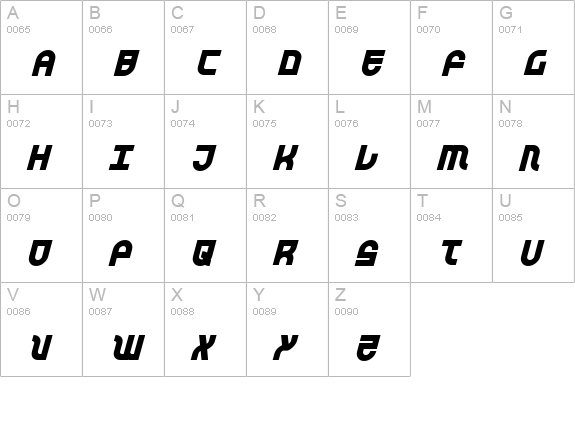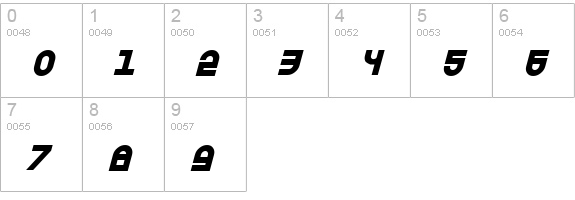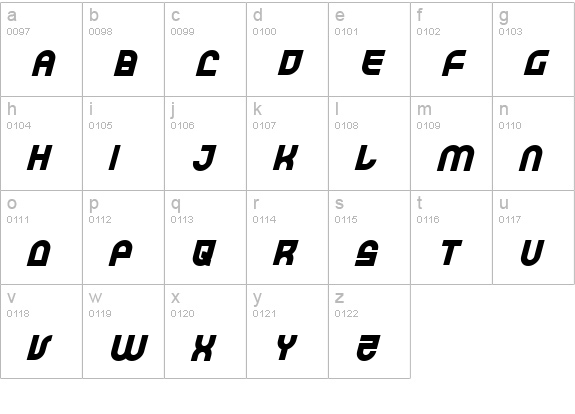
Trek Trooper Bold Italic is a strong, high-contrast, italic variant in the Trek typeface family \xE2\x80\x94 well suited to headlines, attention-grabbing titles, and strong calls-to-action.
Trek Trooper Bold Italic font is a striking and dynamic typeface that exudes a sense of adventure and boldness. Its sleek and modern design makes it perfect for a variety of creative projects, from branding to editorial design. The strong, italicized characters convey a sense of movement and energy, making this font an excellent choice for titles, headlines, and other attention-grabbing text. What makes Trek Trooper Bold Italic even more appealing is that it is available for free download at FontsMarket.com. This means that you can easily access this high-quality font without any cost, allowing you to elevate your designs without breaking the bank. Whether you're a seasoned designer or just starting out, Trek Trooper Bold Italic is a versatile and stylish font that is sure to make a statement in your projects. Download it now and unleash your creativity with this fantastic typeface.